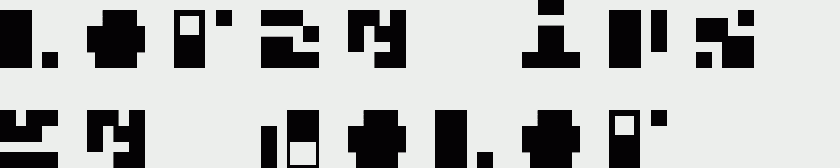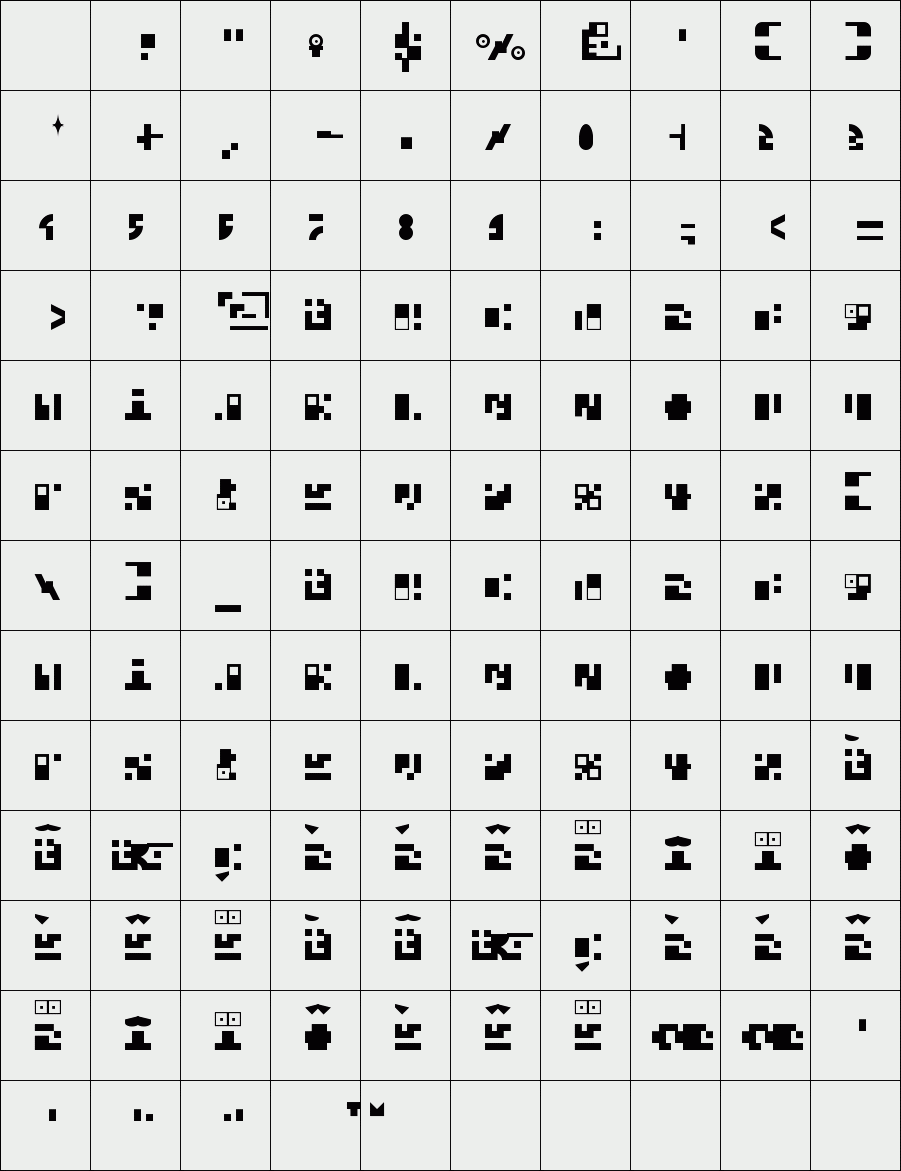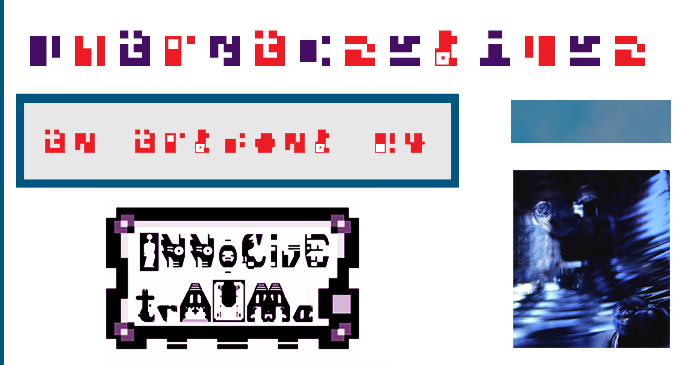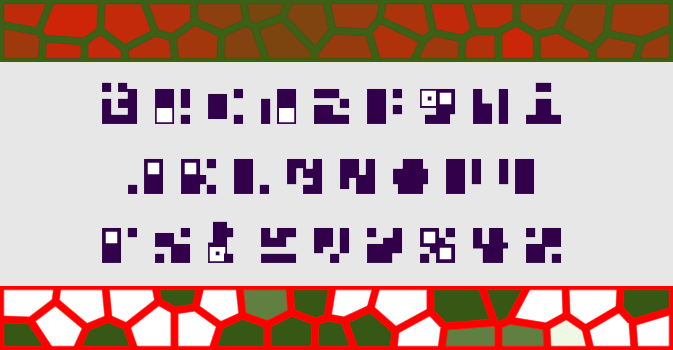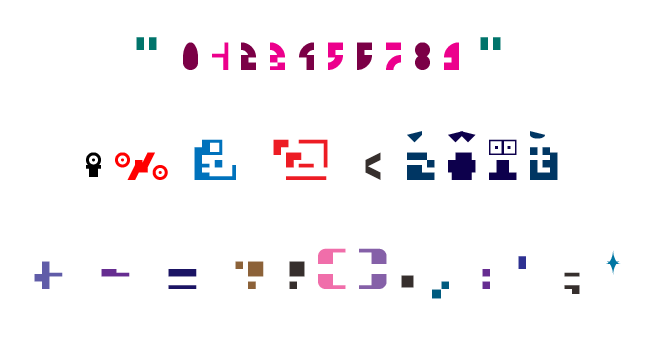
trAUMa 118 - Pharmaceutique
"Pharmaceutique", like all the "trAUMa" series, works at the frontier between Art & Type Design, Figuration & Abstraction, each font is a comprehensive world in which every glyph is a "living" entity. But put together they can produce your messages in the most accurate way.